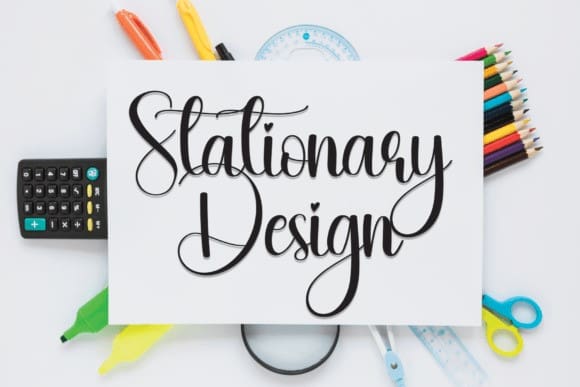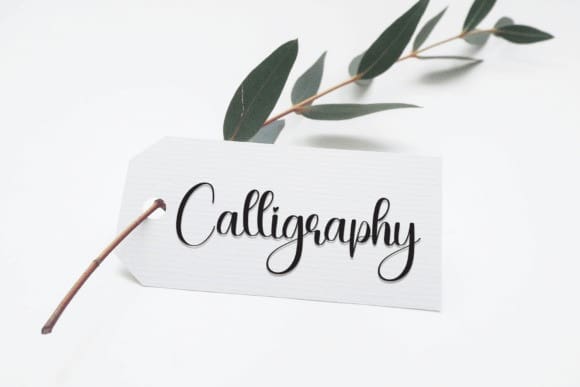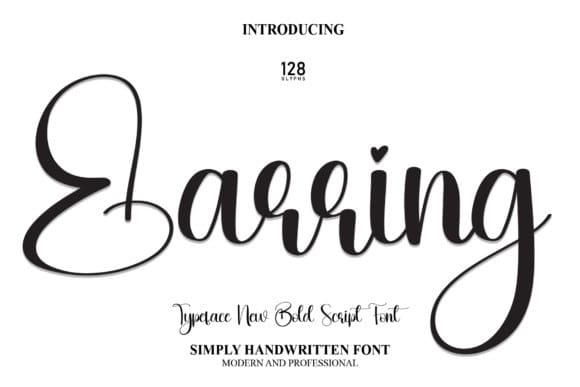
Earring Script Font
Earring Script Font is a romantic and beautifully flowing handwritten font. Its latest style letters are perfect for wall displays, wedding invitations, social media posts, logos, advertisements, product packaging, product designs, labels, photography, watermarks, invitations, stationery, and any project that requires handwritten typography.